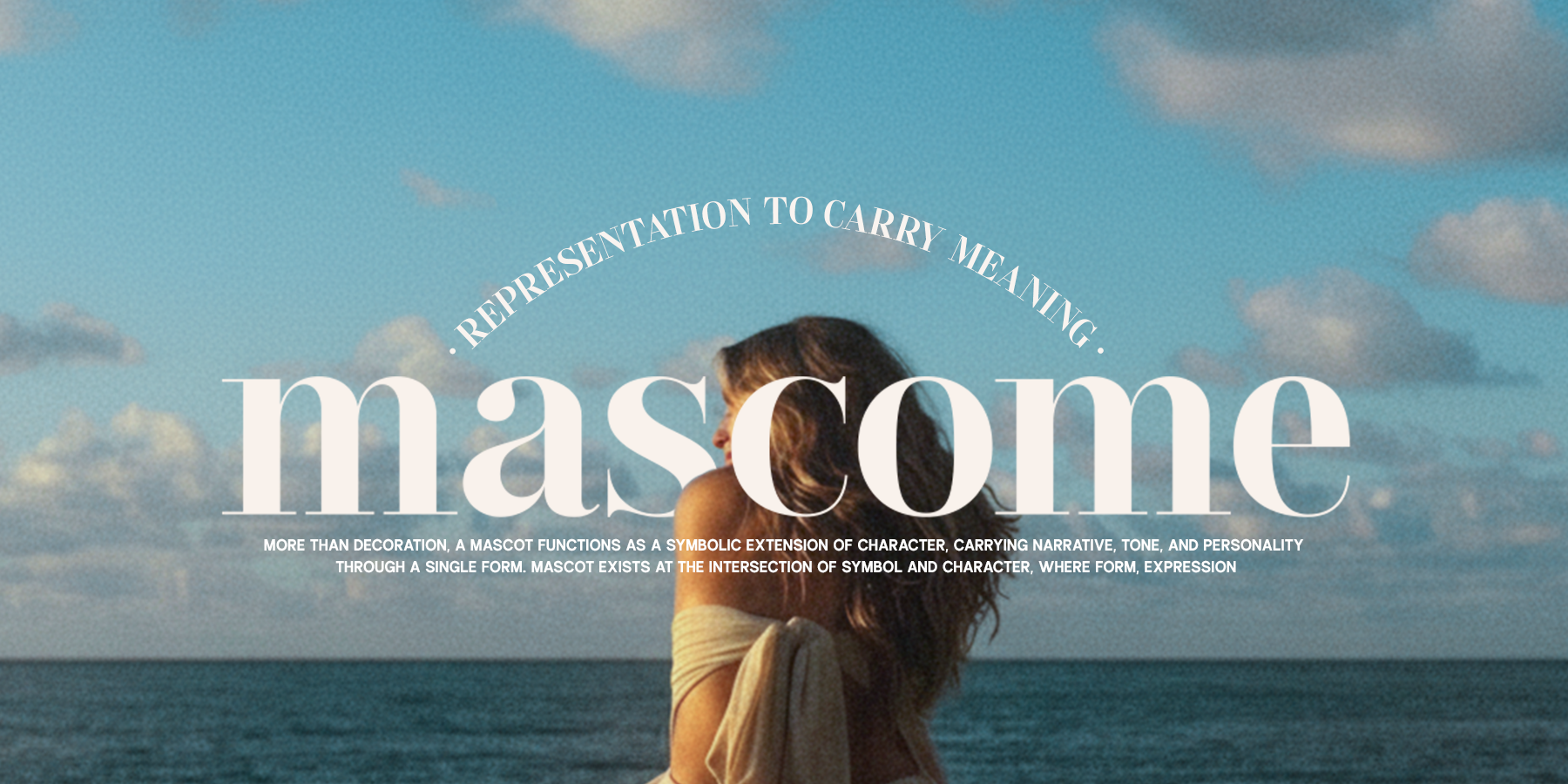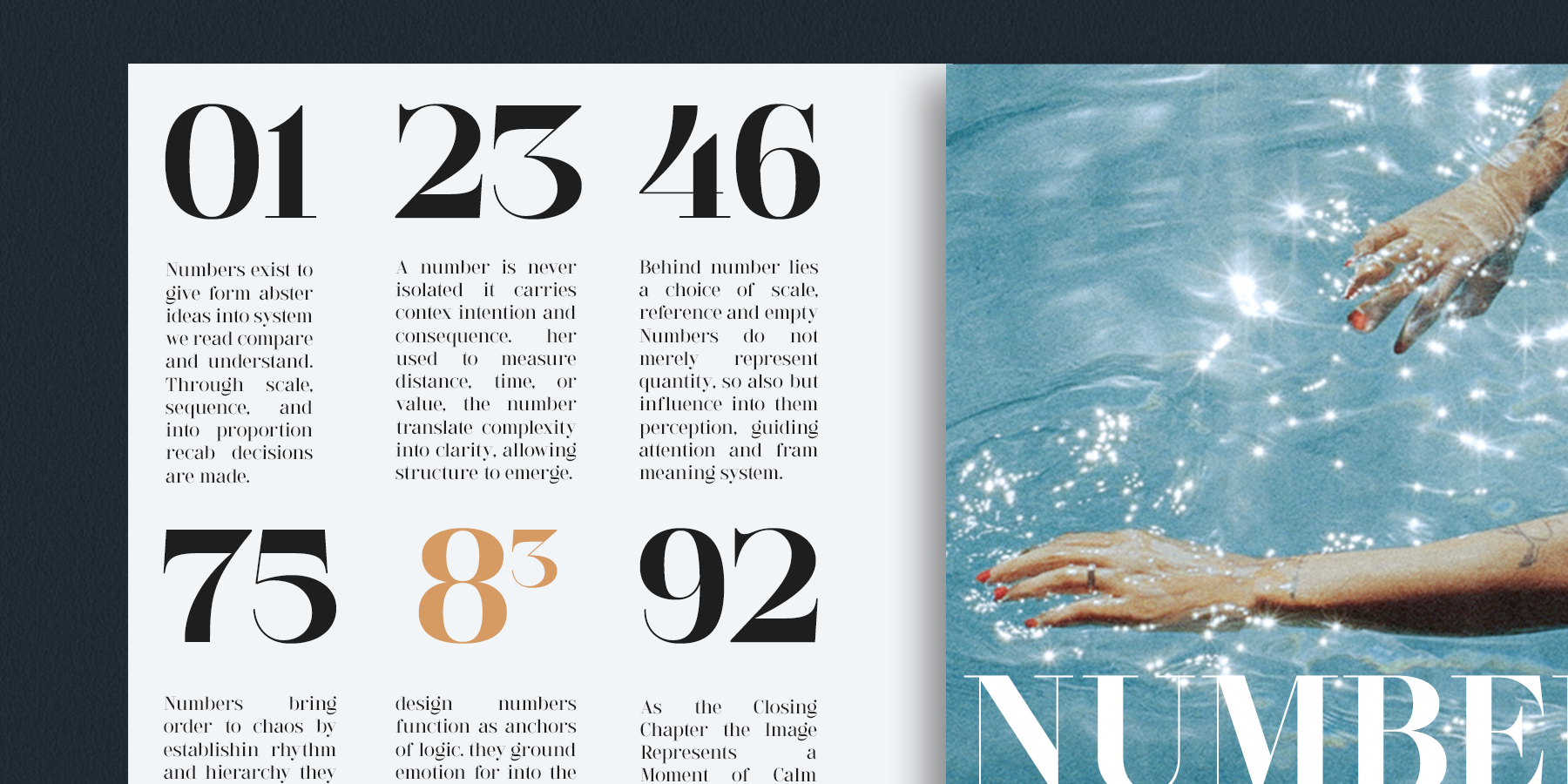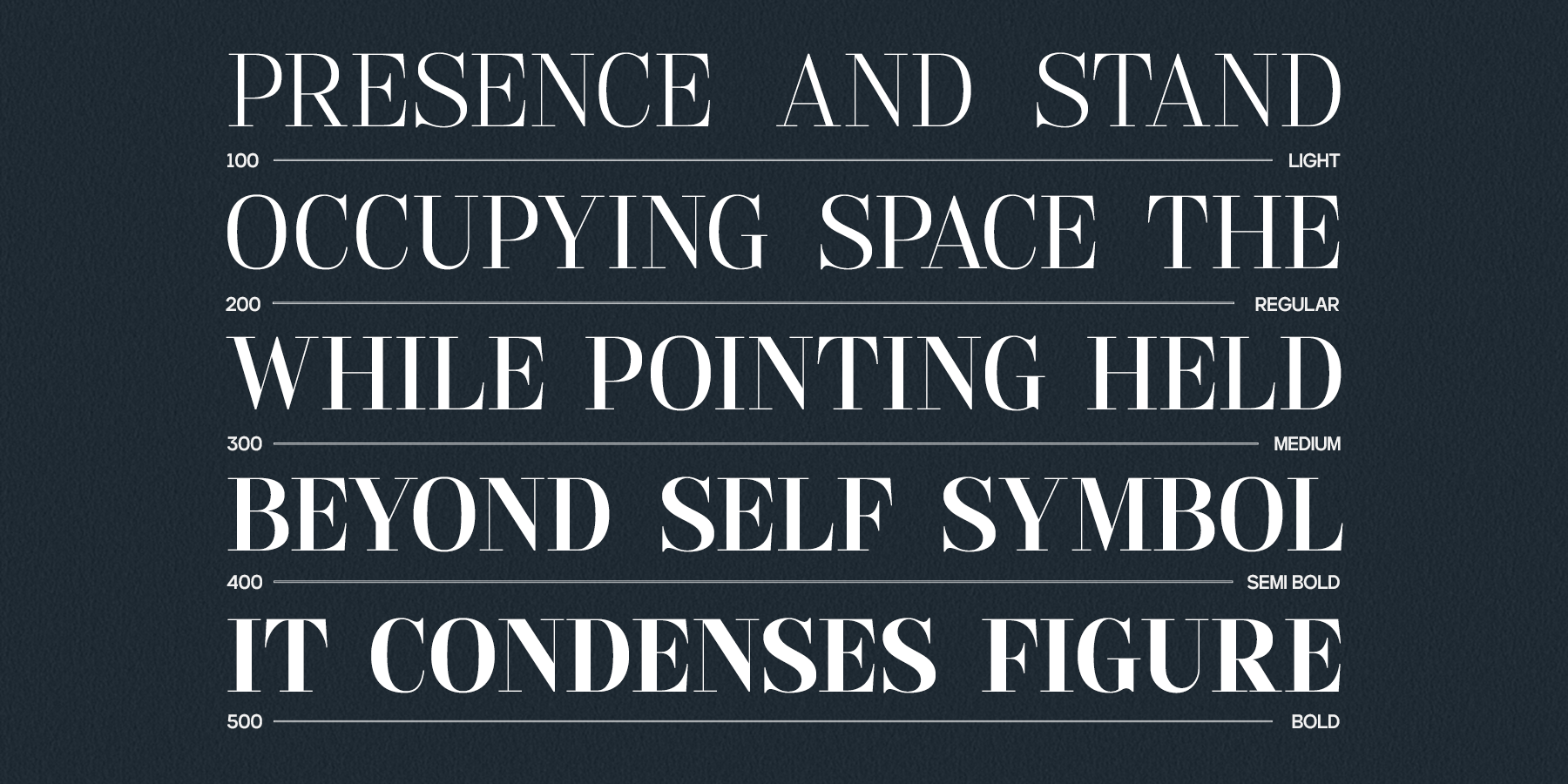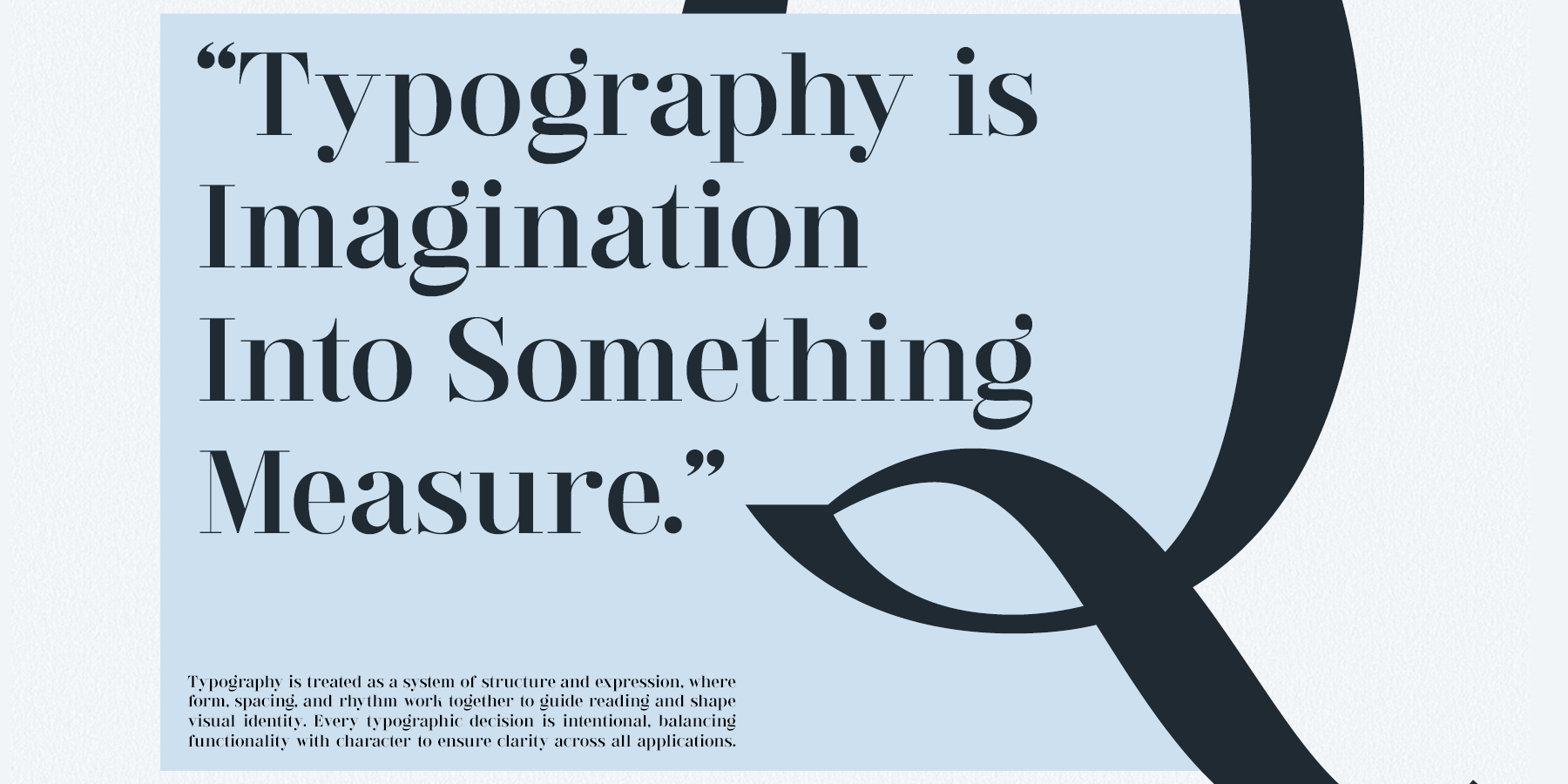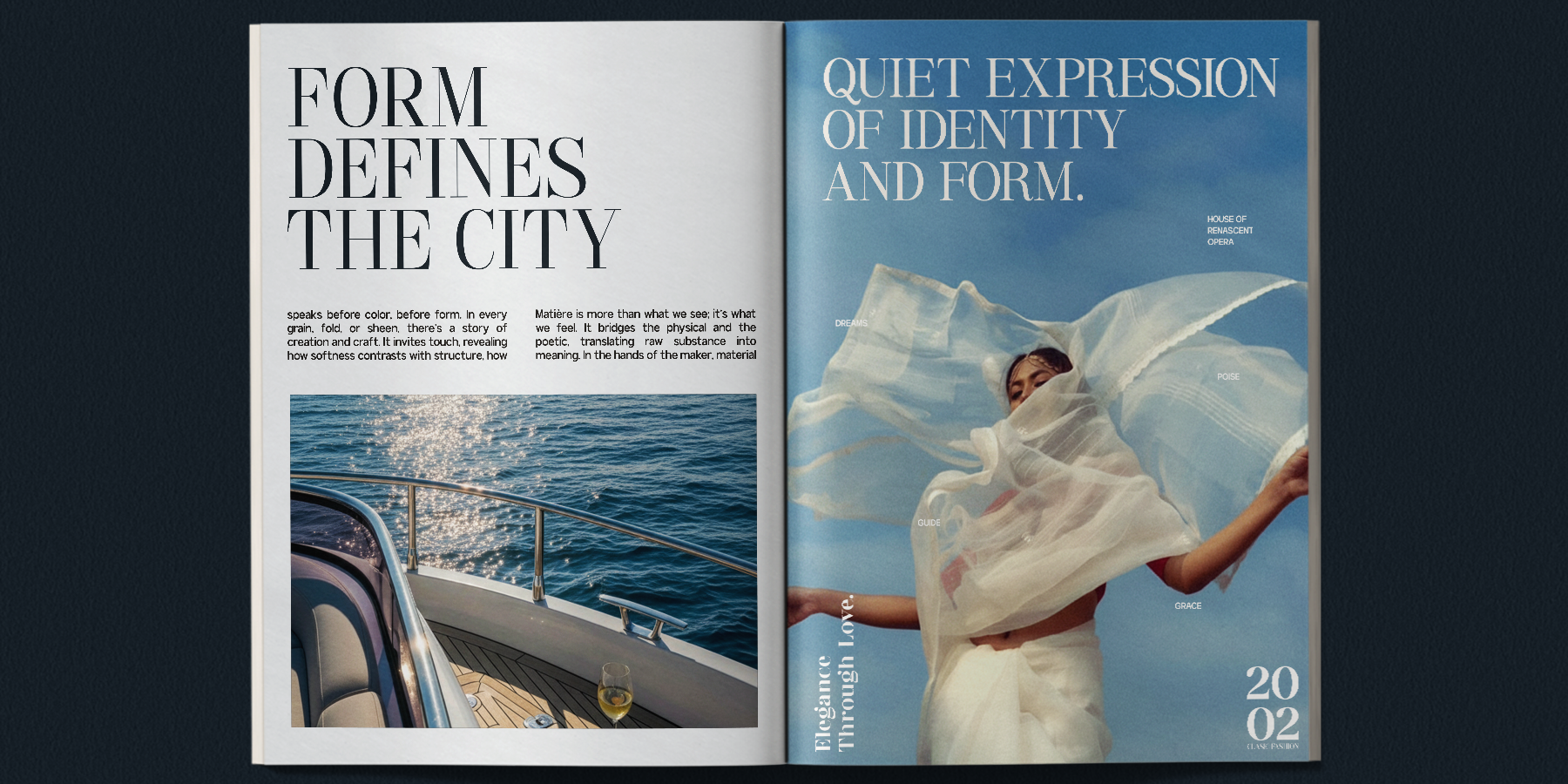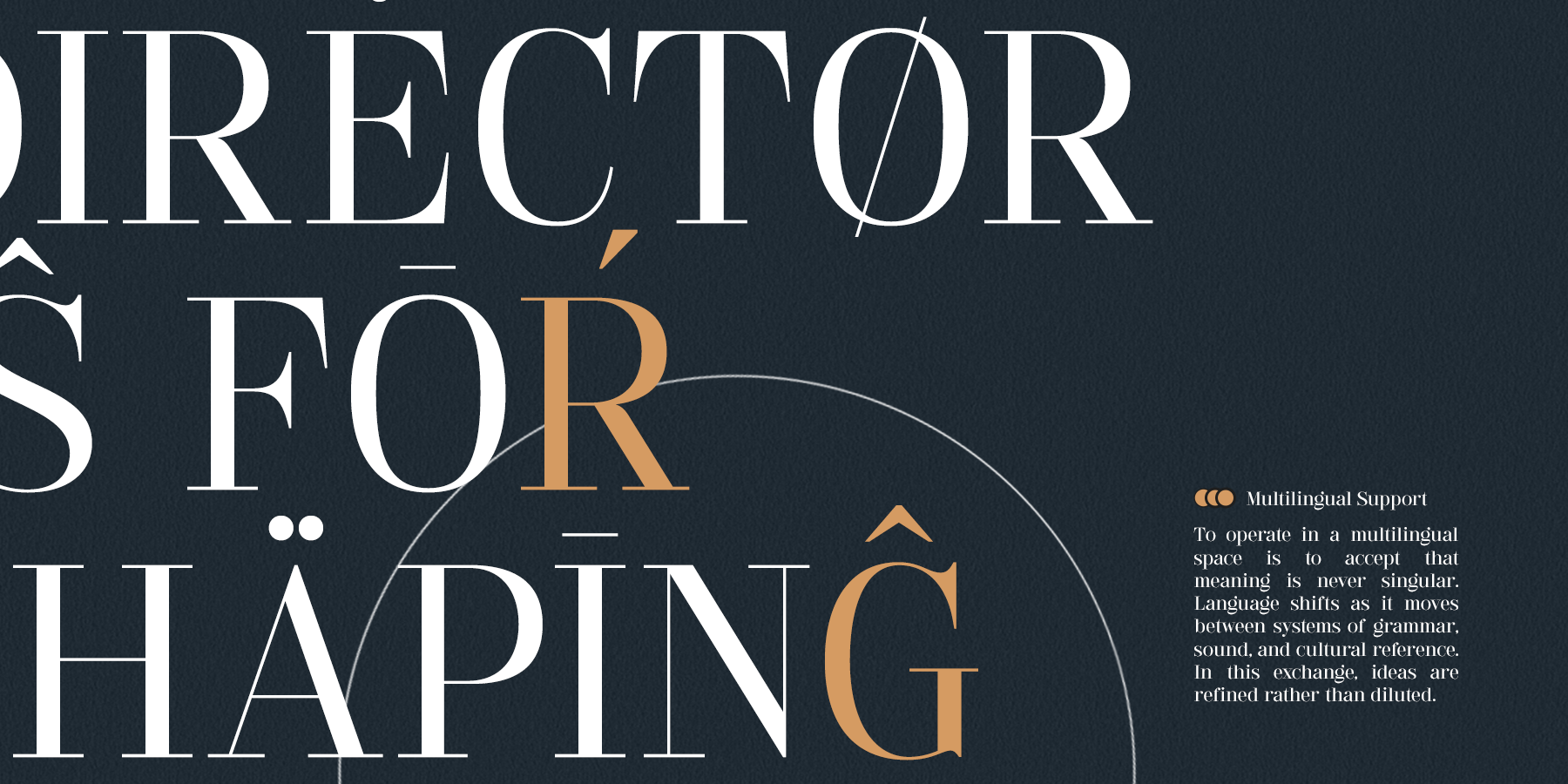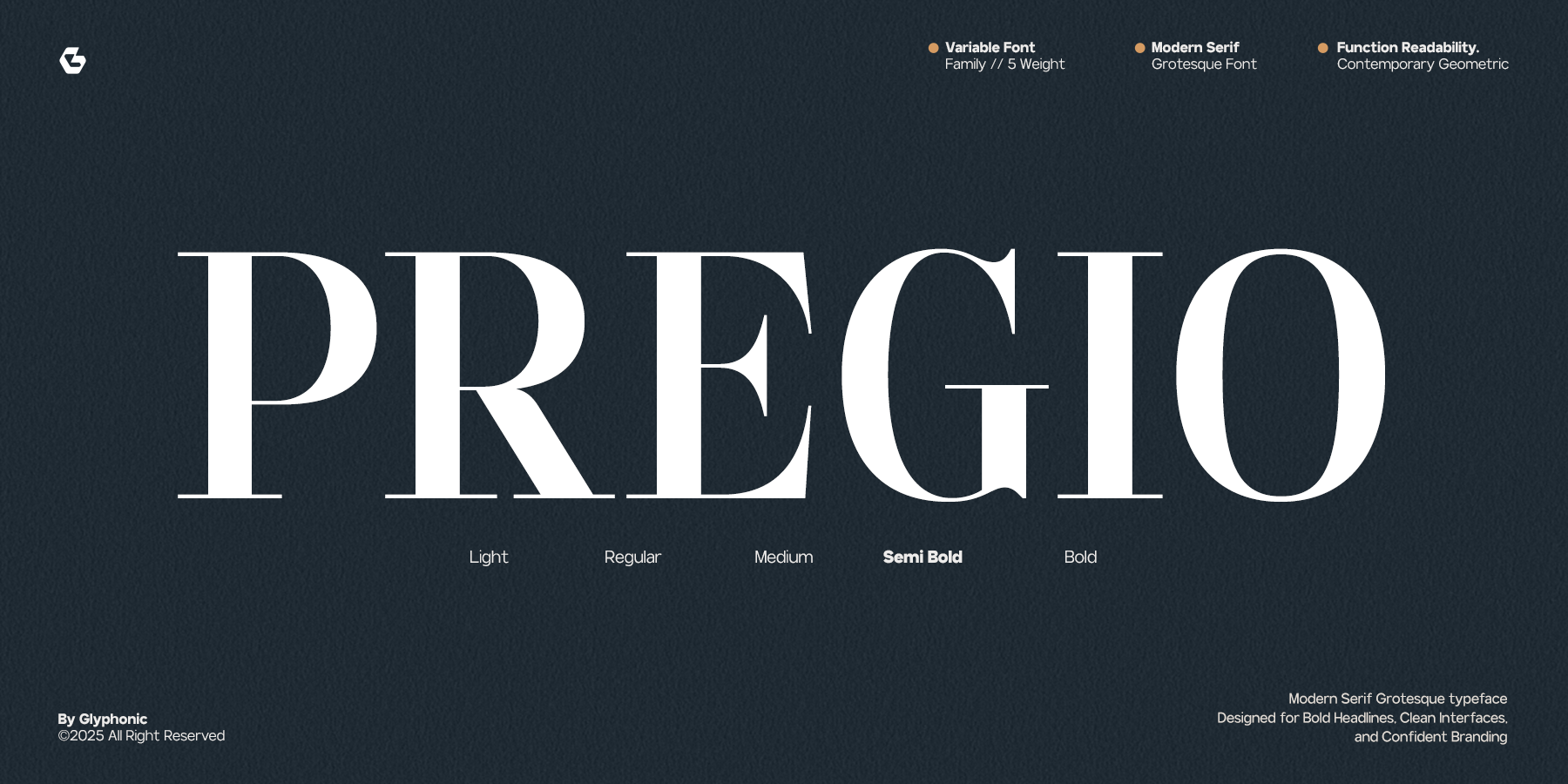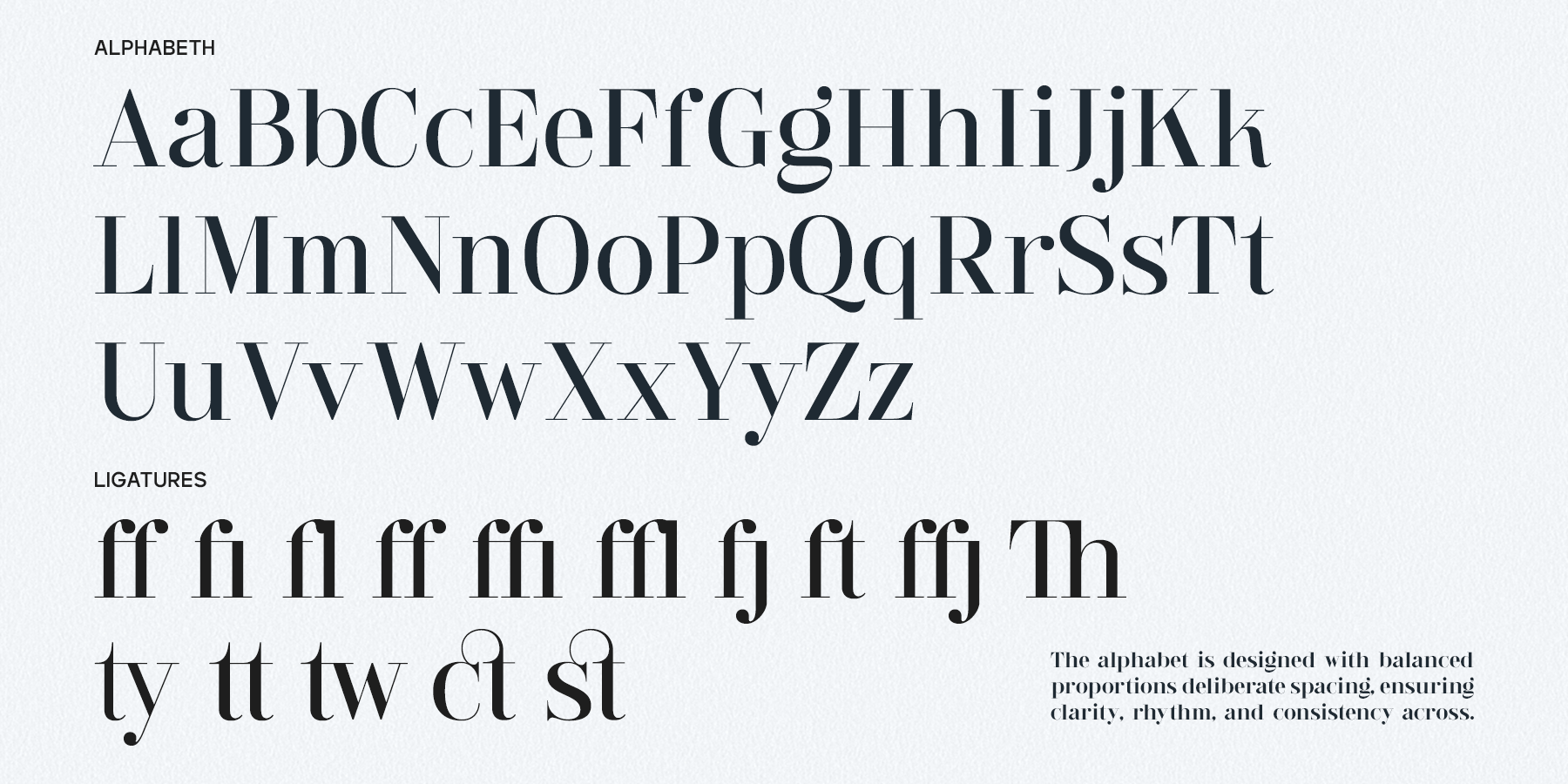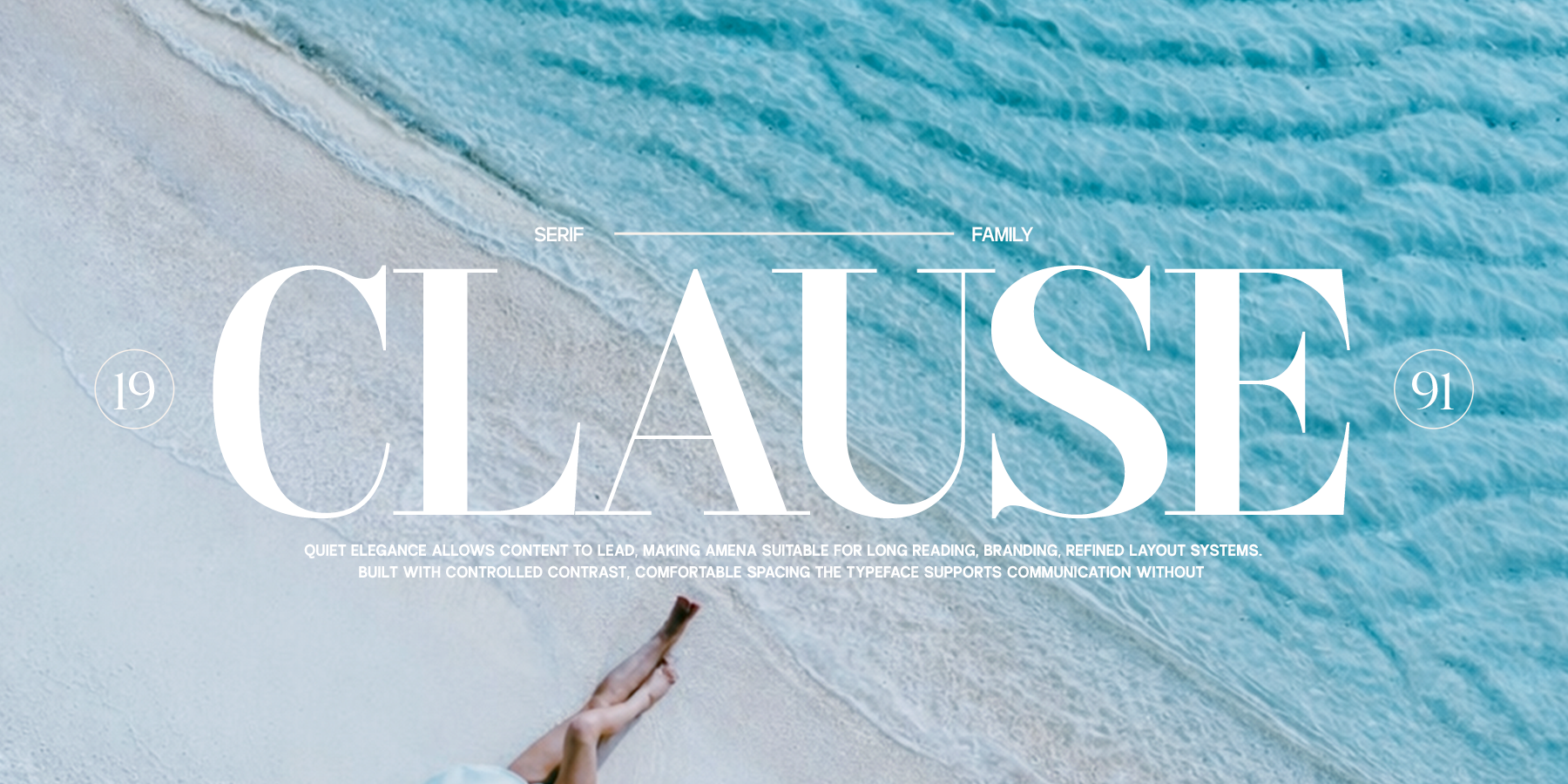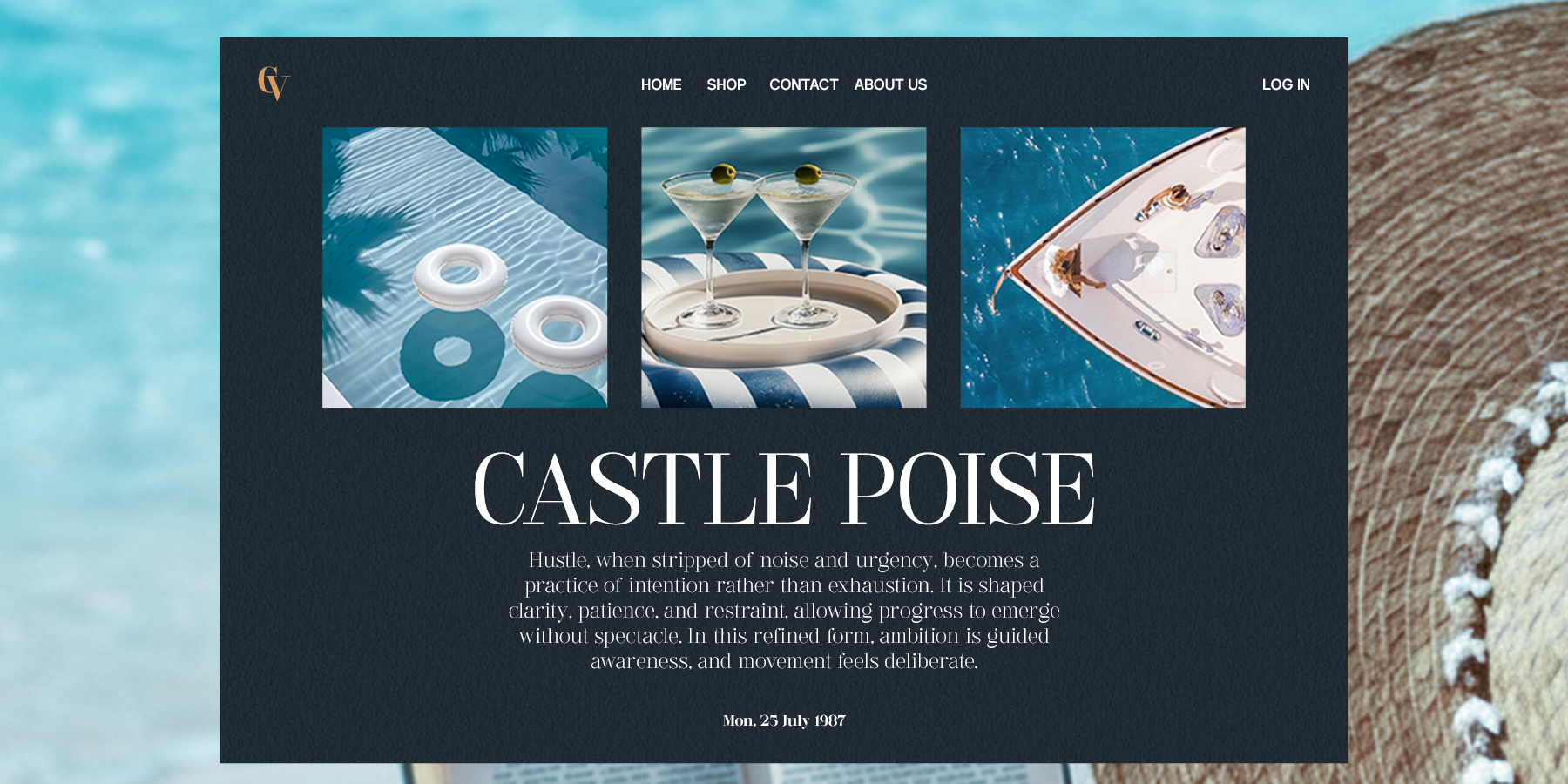
GC Pregio by Glyphonic – Clean Serif Typeface is a refined serif font family designed for clarity, elegance, and timeless versatility. Featuring clean shapes, balanced proportions, and subtle serif details across multiple styles, it delivers a professional yet warm character that remains consistent and flexible in use.
Crafted to blend classic sophistication with modern simplicity, GC Pregio is ideal for branding systems, editorial design, headlines, print materials, and premium visual identities. Its well-structured family allows designers to create clear hierarchy while maintaining visual harmony.
Whether you’re designing elegant layouts, refined logos, or sophisticated editorial compositions, GC Pregio provides consistency, readability, and understated elegance across every application.
Features: - Complete Font Family - Uppercase & Lowercase - Numbers & Punctuation - Clean & Balanced Serif Construction - Multilingual Support (170+ Languages) - File Formats: OTF, TTF, Webfont
Bring timeless clarity and cohesive elegance to your designs with GC Pregio.